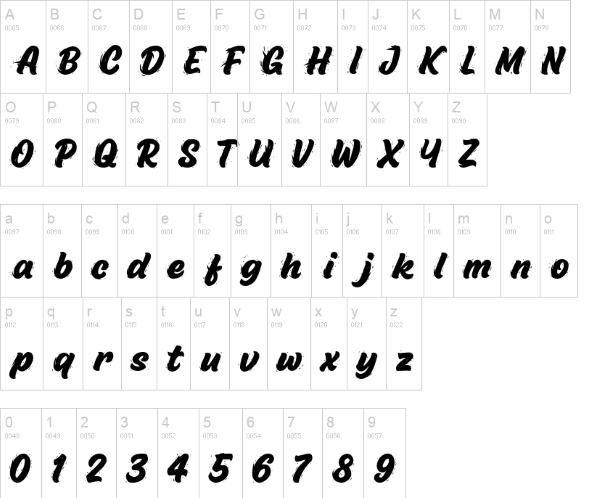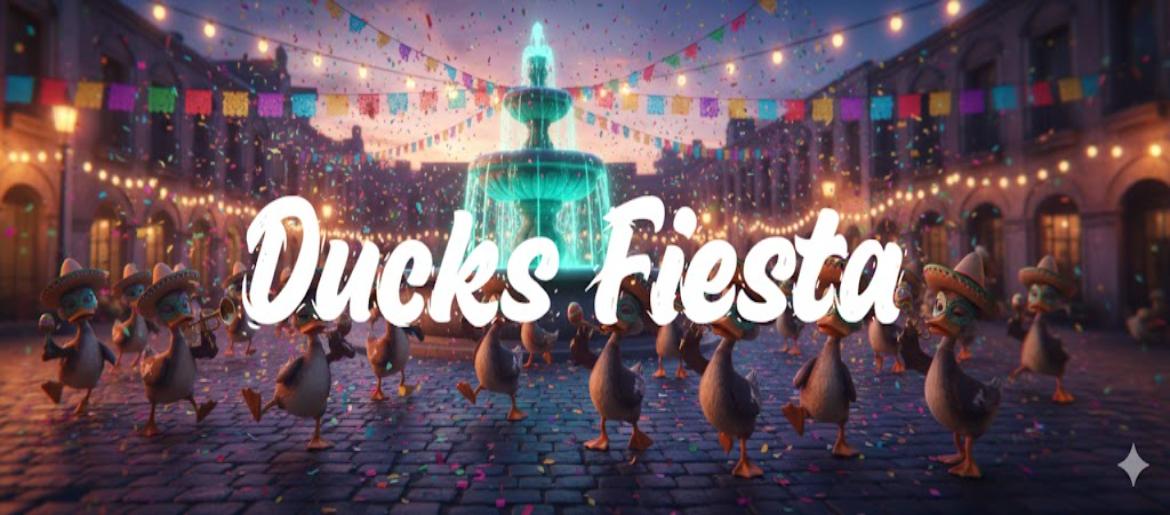
Ducks Fiesta Font
Ducks Fiesta Font is a lively brush-style typeface featuring energetic strokes and a playful rhythm. Its expressive hand-painted look makes it ideal for posters, party designs, logos, packaging, and social media graphics. Ducks Fiesta brings movement and fun to layouts, helping designs feel bold, cheerful, and full of creative personality.